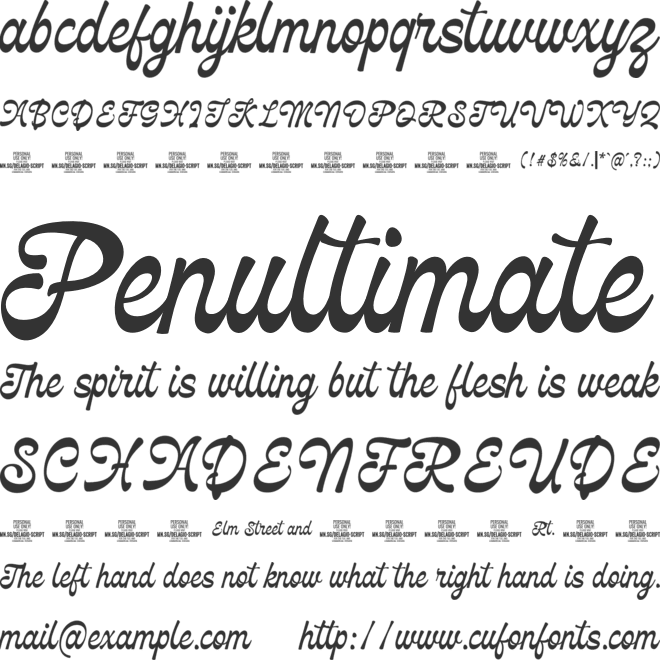
Delagio Script PERSONAL USE Font
Delagio Script is a calligraphic font that combines cursive elegance with a funky, innovative edge. It's a creative and heavy retro-inspired font that embodies the distinctive charm of soft brush strokes.
Use underscores _ to make swashes under words.
Example: Magician_